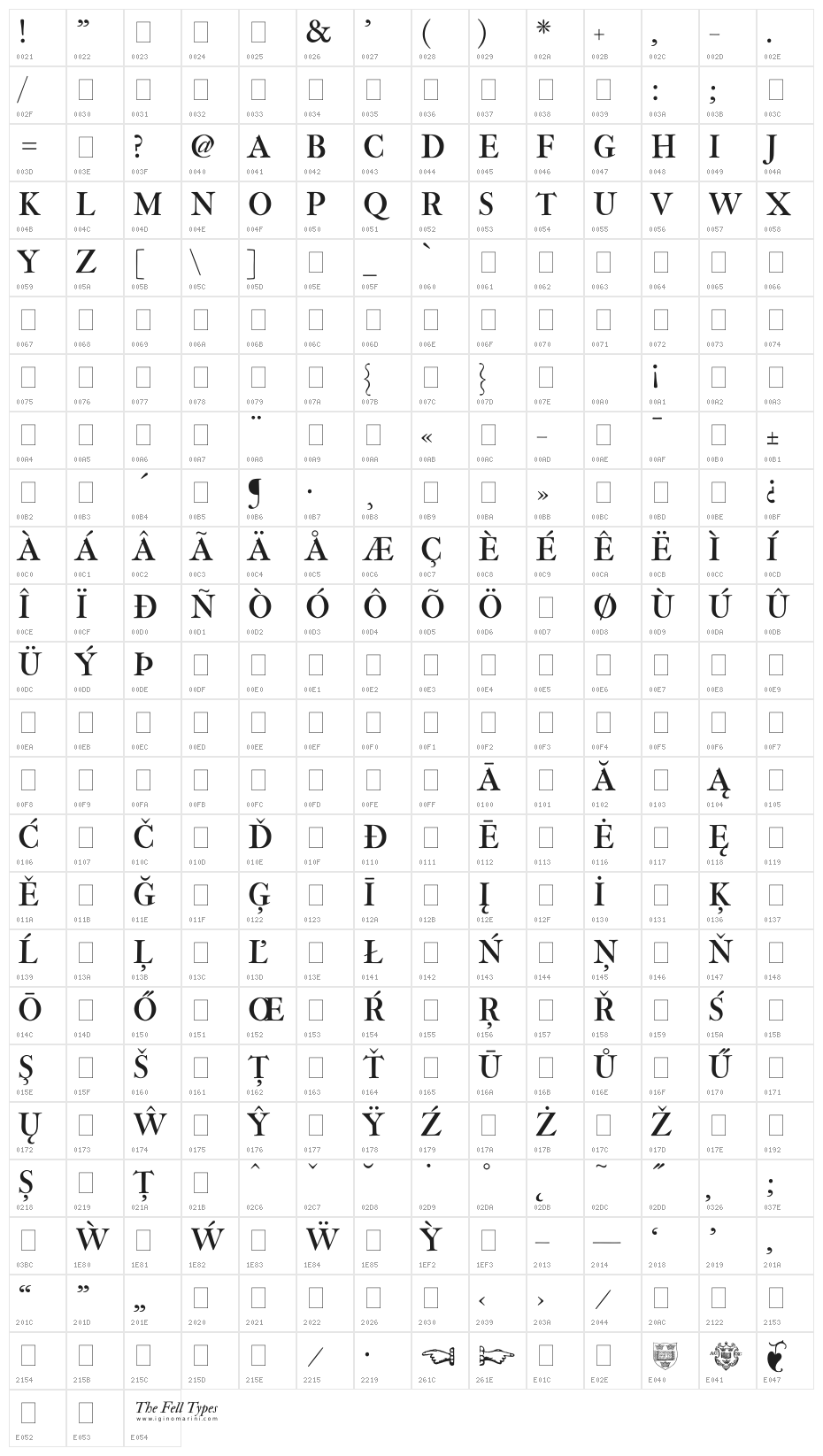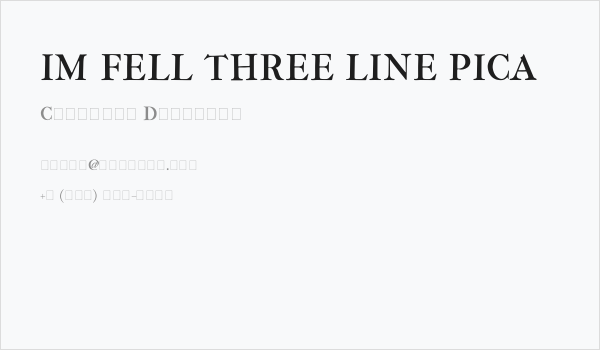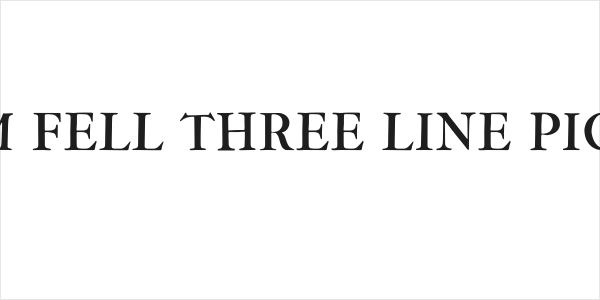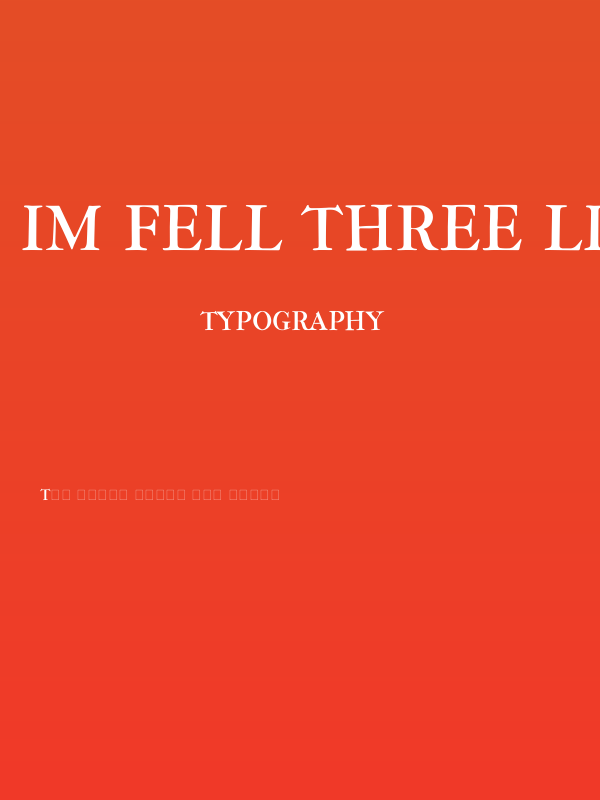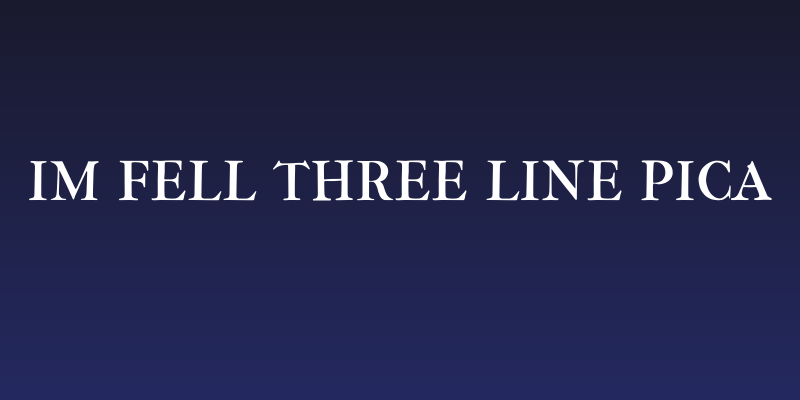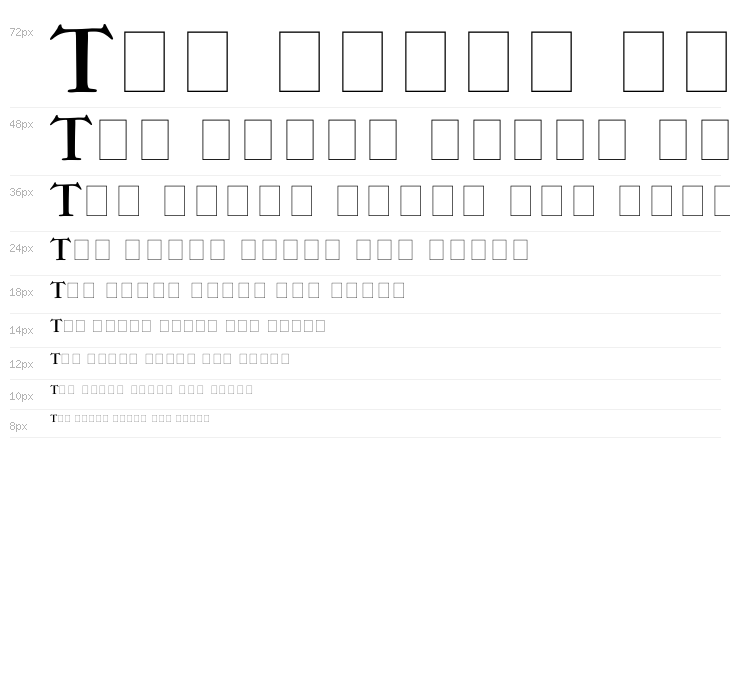
IM FELL THREE LINE PICA Font
IM FELL THREE LINE PICA Description
This font features a classic serif style with strong, bold strokes and high contrast between thick and thin lines. The serifs are pronounced and elegant, giving the typeface a traditional and authoritative appearance. The uppercase letters are well-proportioned, with a slightly condensed width that enhances readability. The overall design is reminiscent of historical print styles, making it suitable for projects that require a touch of sophistication and timelessness. The characters are evenly spaced, ensuring clarity and legibility across various applications.
| Proposed Projects | Ideal for book covers, formal invitations, historical documents, and branding that requires a classic touch. |